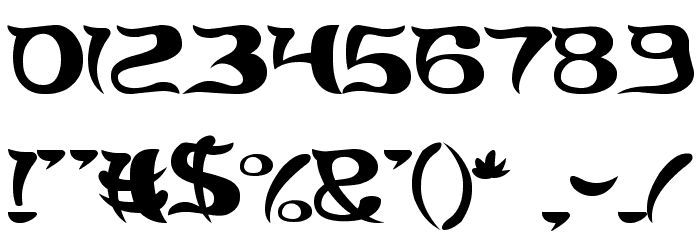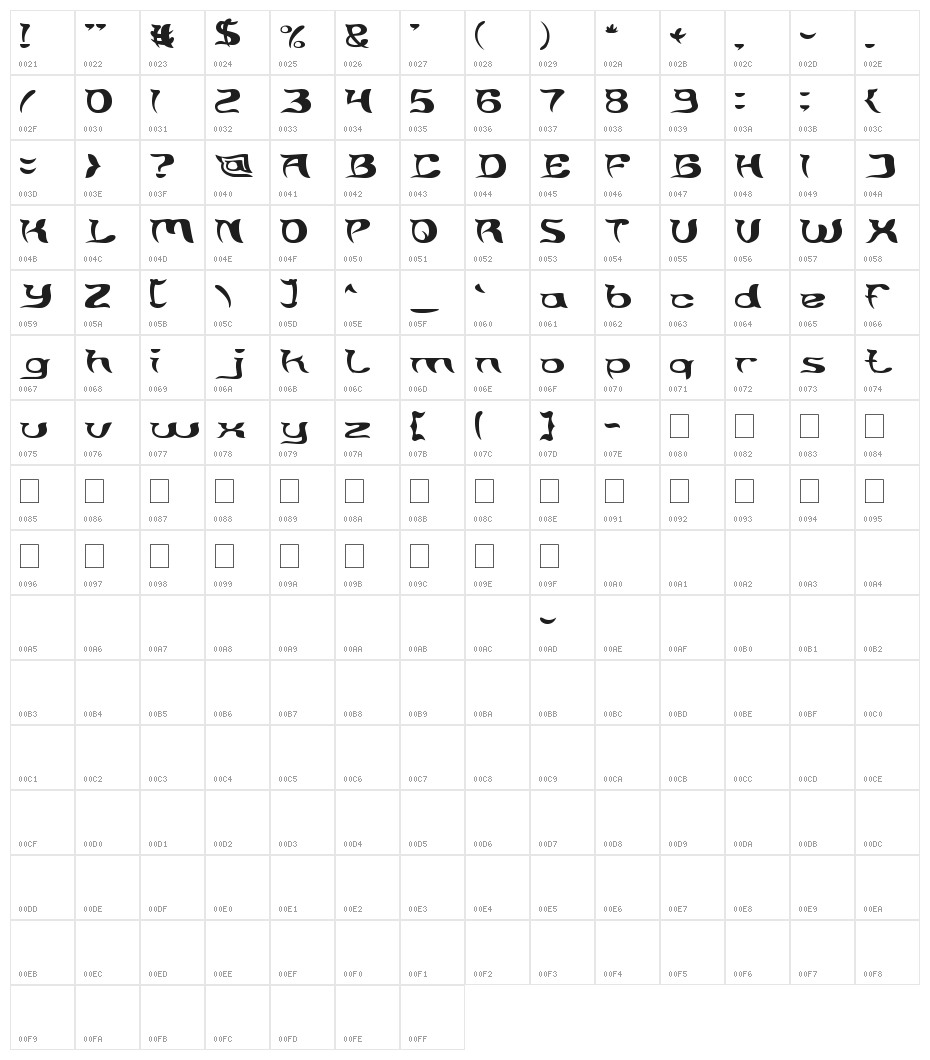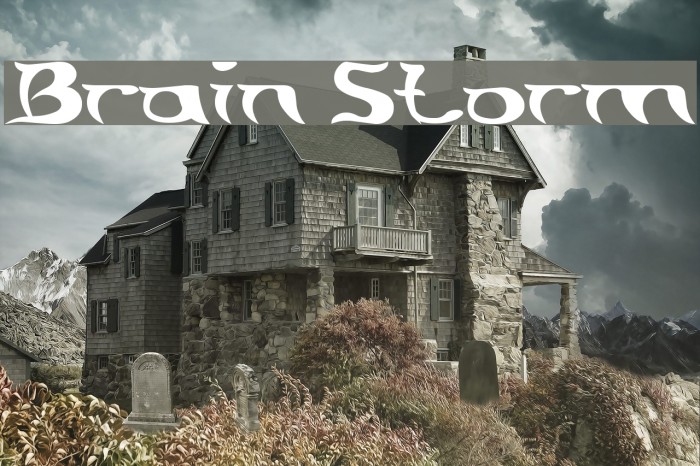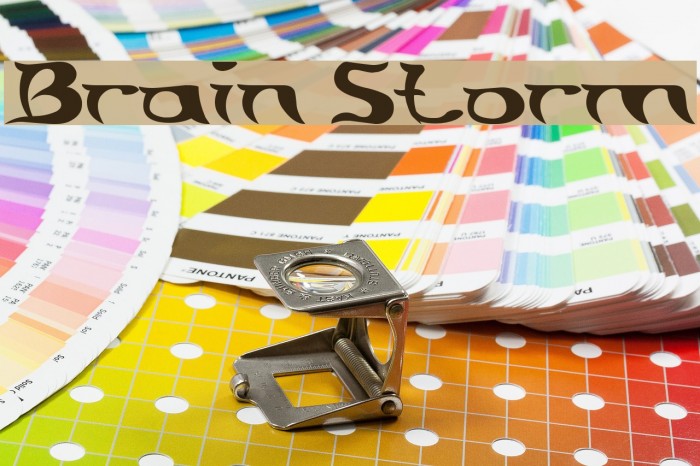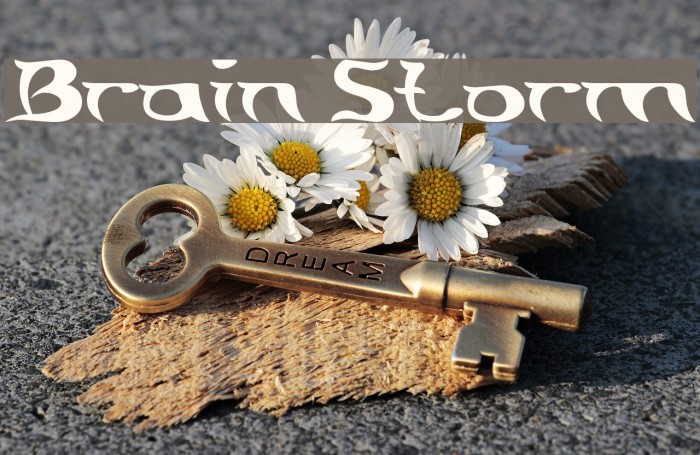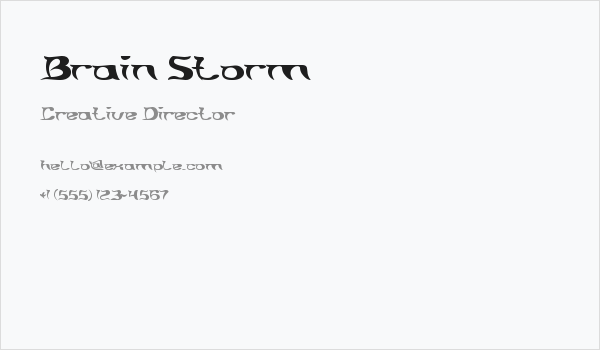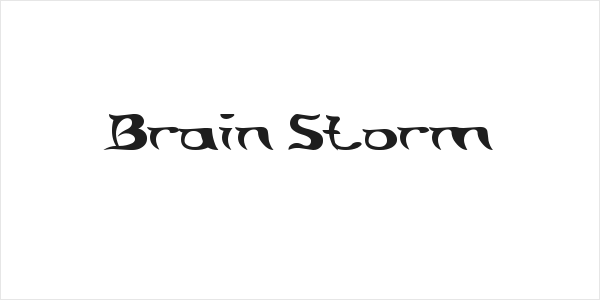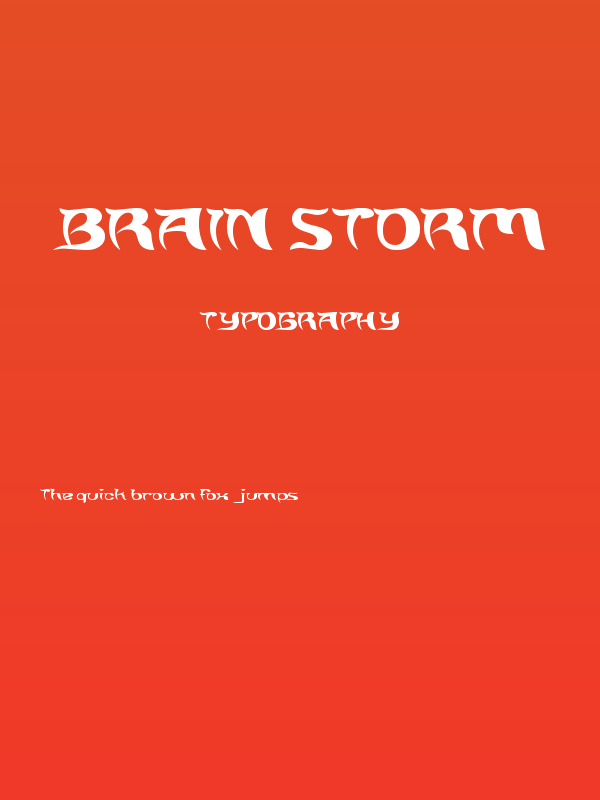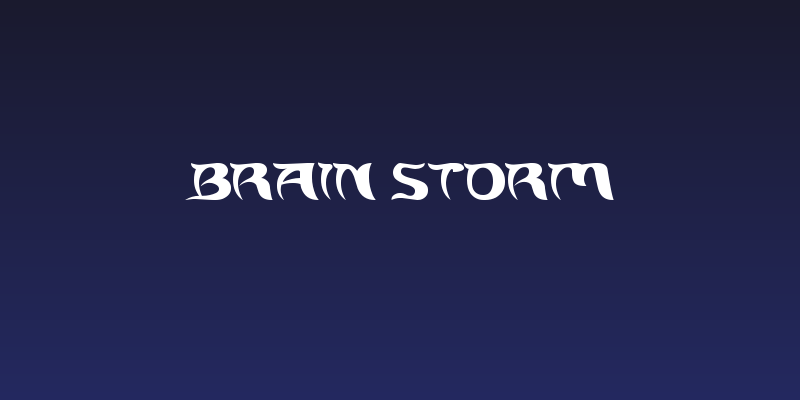
Brain Storm Font
Brain Storm Description
This font features a bold, dramatic style with sharp, angular edges and a distinct gothic influence. The characters are uniquely crafted with a sense of movement and flair, making them stand out with their artistic and somewhat aggressive appearance. The uppercase letters are particularly striking, with exaggerated serifs and a flowing, almost calligraphic quality. The lowercase letters maintain this dynamic style, offering a cohesive look across the alphabet. Numbers and special characters are equally bold, ensuring consistency throughout the font. This font is ideal for projects that require a strong visual impact and a touch of medieval or fantasy aesthetics.
| Overall Style | Gothic, Dramatic, Artistic |
| Proposed Projects | Perfect for fantasy book covers, video game titles, posters, and branding that requires a strong, artistic presence. |